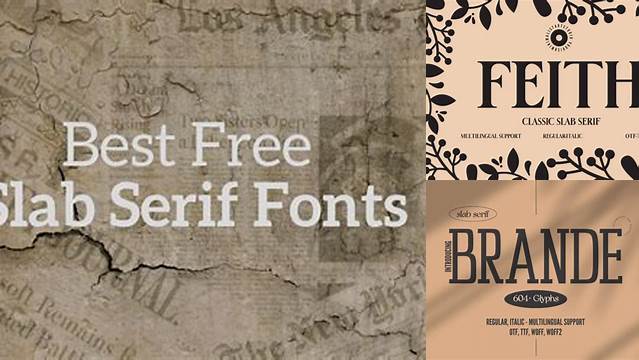
Mastering Slab Serif Fonts In Illustrator: A Comprehensive Guide
Hey everyone! Today, we're diving deep into the wonderful world of slab serif fonts in Illustrator. Seriously, if you're looking to level up your design game, understanding and using these fonts is a must. We'll cover everything from the basics of what a slab serif is, to how to effectively use them in your projects. Get ready to unleash some serious design power, because we're about to make your Illustrator skills shine brighter than ever before!
1. What Exactly ARE Slab Serif Fonts?
Alright, let's start with the basics, shall we? Slab serif fonts in Illustrator are a specific type of typeface characterized by their bold, block-like serifs – those little strokes at the end of each letter. Think of them as the strong, sturdy cousins of the more elegant serif fonts like Times New Roman or Garamond. They're all about making a statement, grabbing attention, and conveying a sense of strength, stability, and sometimes, a touch of retro cool. These fonts are known for their heavy, often rectangular serifs that give them a solid, almost industrial feel. Because of their robust appearance, slab serif fonts in Illustrator are often used for headlines, titles, and any text that needs to stand out. Their readability at larger sizes makes them perfect for grabbing the viewer’s attention immediately. You will often see them used in logos, posters, and advertising materials where impact is key. Consider them the workhorses of the typography world – reliable, strong, and always ready to get the job done. They are fantastic for creating a feeling of confidence and trustworthiness, which is why you'll find them used by many established brands. This makes slab serif fonts in Illustrator incredibly versatile. Plus, the variety within the category is vast. You can find fonts that lean towards a classic look, while others have a more modern or even playful twist. The possibilities are endless, really.
2. Exploring Popular Slab Serif Font Families in Illustrator
Now that you have a handle on what slab serif fonts in Illustrator are, let’s get into some of the most popular font families. These are the workhorses of the slab serif world, the ones you'll encounter time and time again. First up, Rockwell – a classic choice, and for good reason! It's bold, dependable, and gives off a solid, no-nonsense vibe. Great for headlines and anything where you want to project a sense of authority. Next, we have Courier – a monospaced font, meaning each letter takes up the same amount of horizontal space. This is especially useful for code or anything that needs to be perfectly aligned. You can find it in nearly any font directory. Then, there’s Roboto Slab, which is part of the popular Roboto family. It’s a more modern take, offering great readability and a friendly feel, making it an excellent choice for body text as well as headlines. Let's not forget about Egyptian Slate, often seen for its unique characteristics. Other popular fonts include Arvo – a geometric slab serif with a clean, modern feel – and Museo Slab, offering a blend of vintage and modern elements. Each font family brings its unique flavor to the table, so experiment to find the one that best suits your project's style and needs. The specific feel of each of these fonts helps to create a certain design language.
3. Choosing the Right Slab Serif Font for Your Project
Selecting the perfect slab serif fonts in Illustrator is more of an art than a science, but here are some rules to guide you. First, think about the overall message you want to convey. Are you aiming for strength and stability? Rockwell might be your go-to. Do you need a touch of modern flair? Consider Roboto Slab. Also, consider your target audience. A bold slab serif might resonate with a younger demographic, while something more classic could be better for a more mature audience. Next, think about the context of your project. Is it a logo, a poster, or a website? Each format will have different requirements in terms of readability and visual impact. Larger text will allow you to showcase the details of the slab serifs more effectively, while smaller text requires a design that maintains its legibility. Always check for readability at different sizes. Some slab serifs look great in headlines but become clunky in body text. You must find a balance. Experiment with different fonts and font weights. Sometimes, a lighter weight of a slab serif can work wonders for body text, providing a unique visual texture. Also, don't be afraid to try something unexpected. Combine slab serifs with other font types to create dynamic and visually appealing layouts. Choosing the correct font can have a tremendous impact on your design's success.